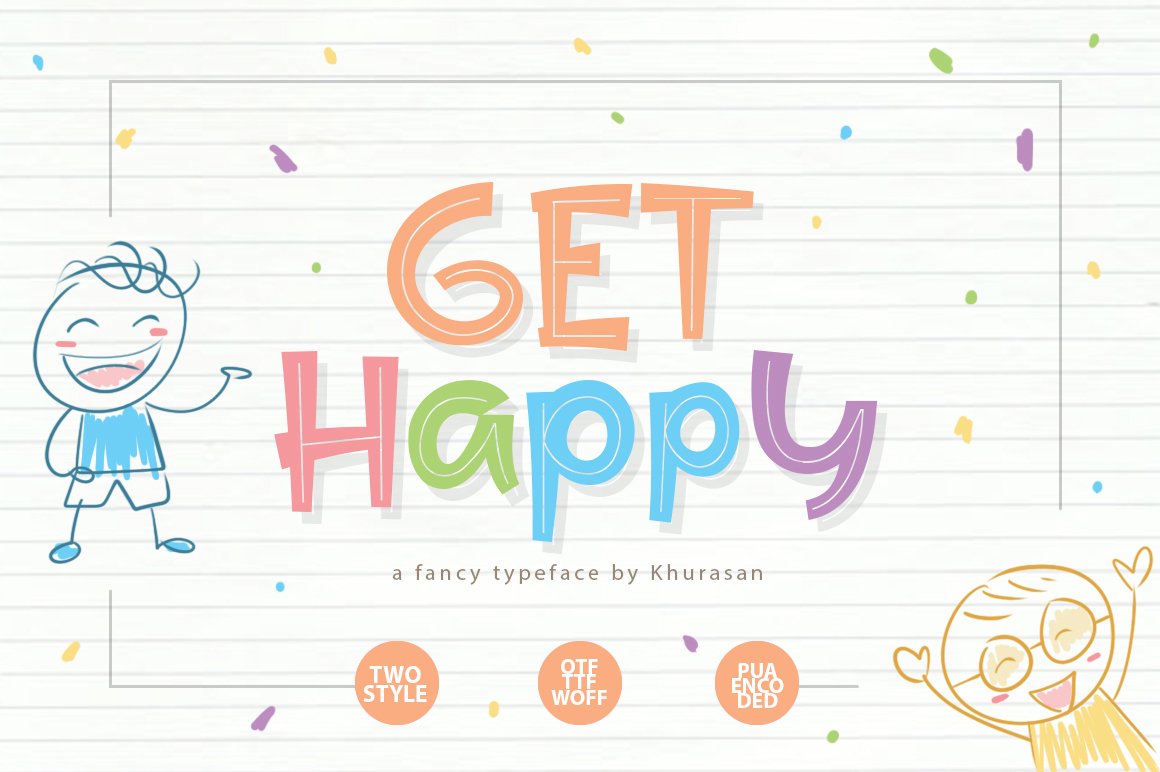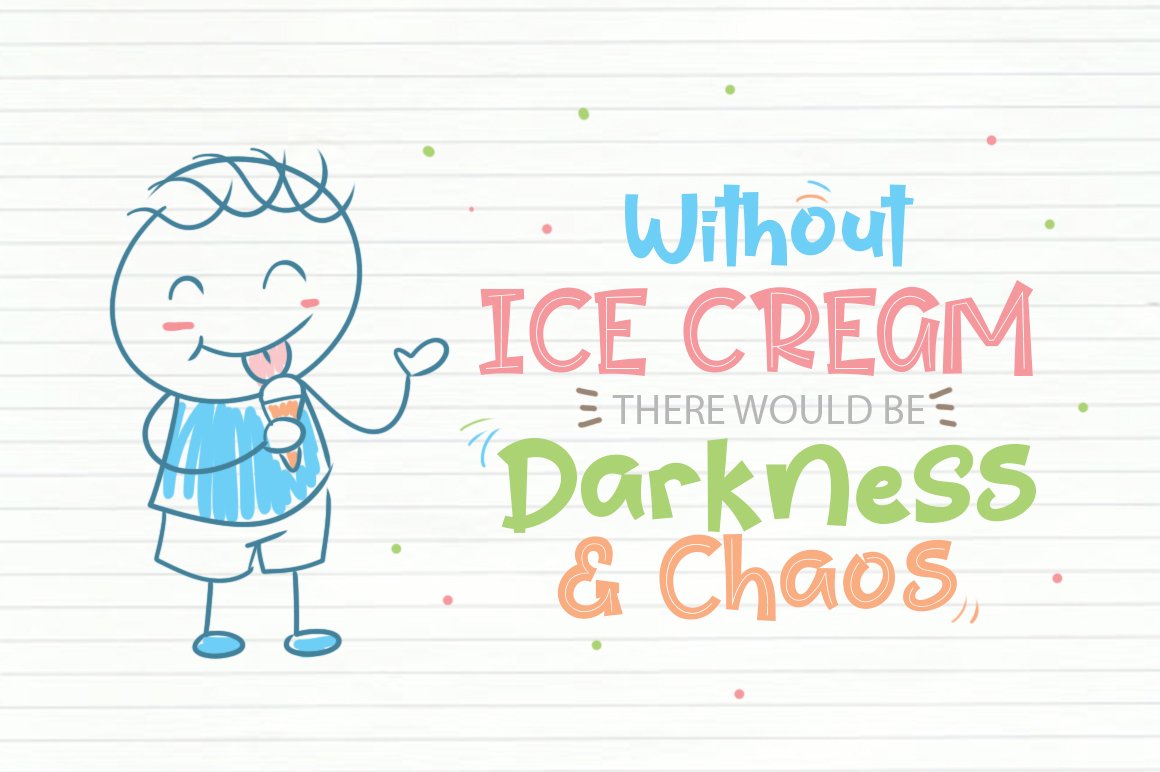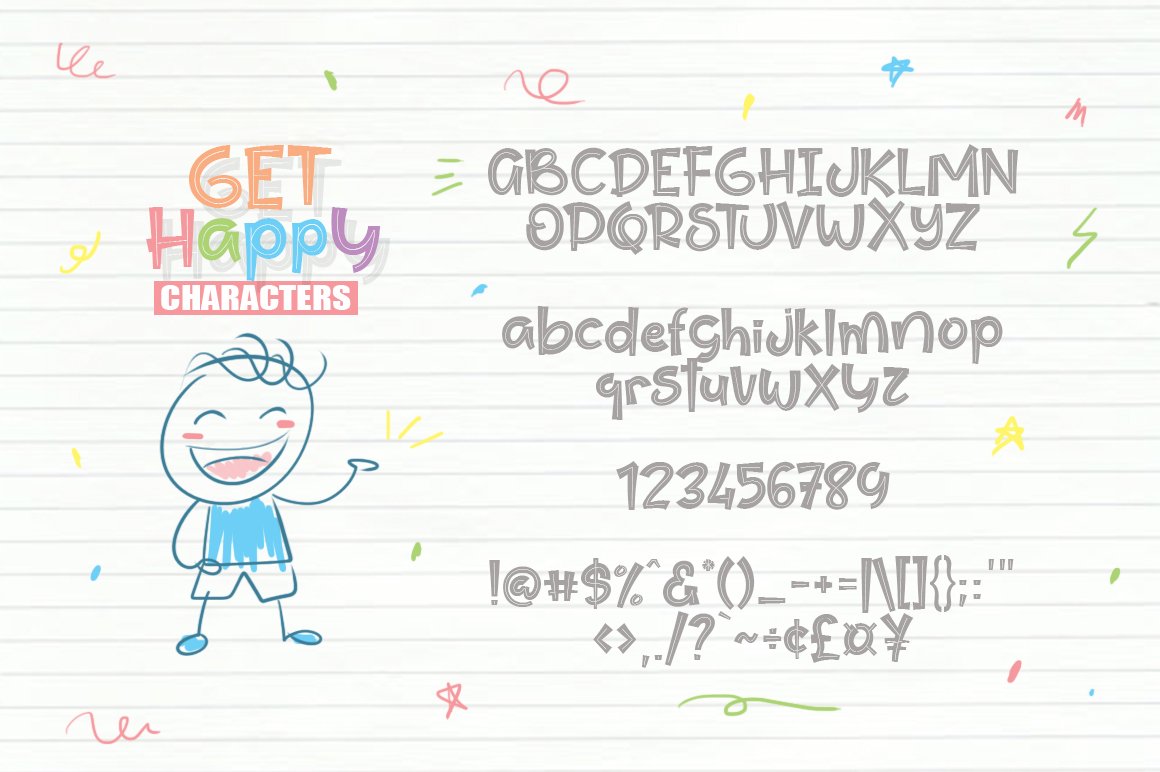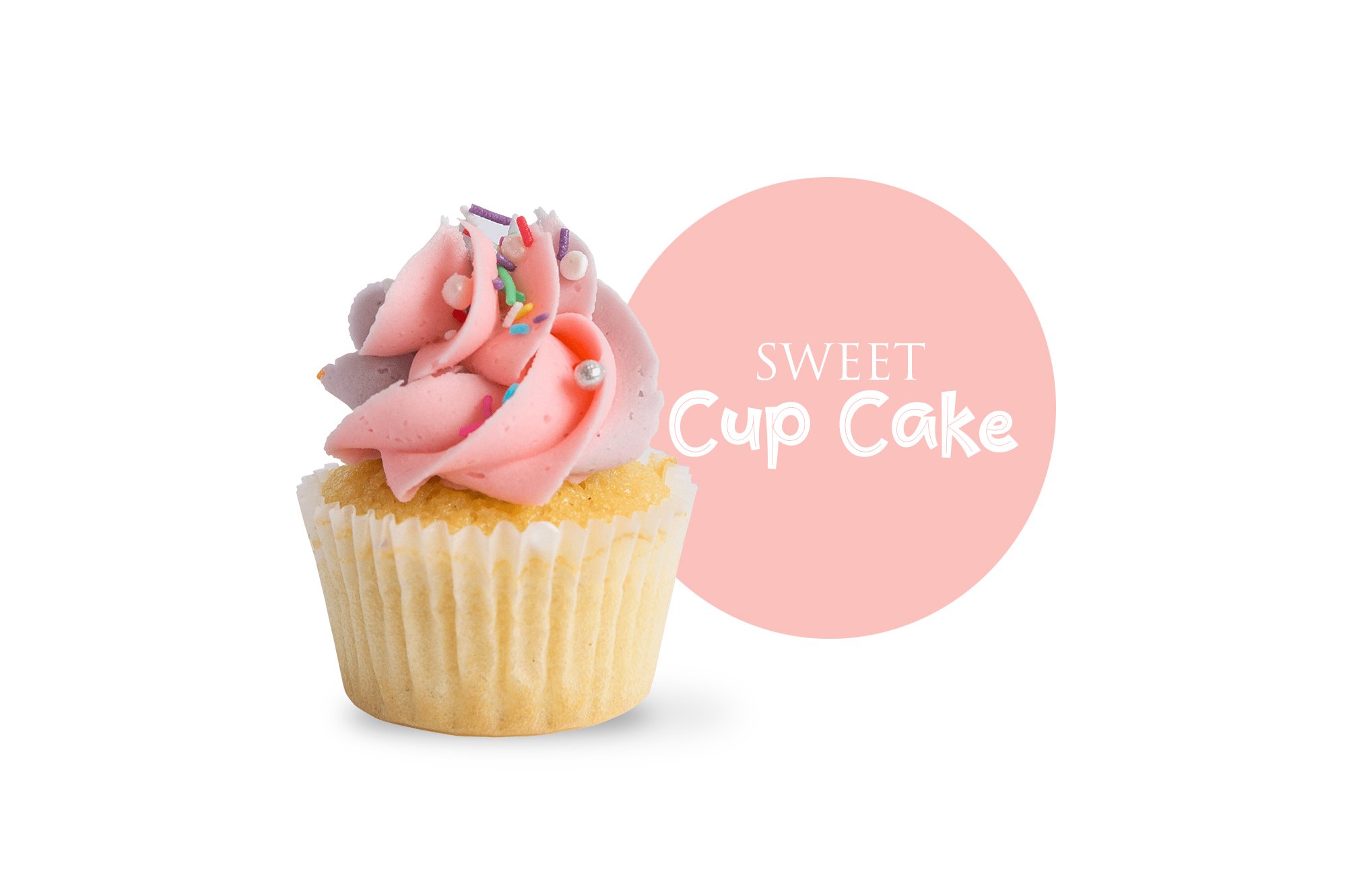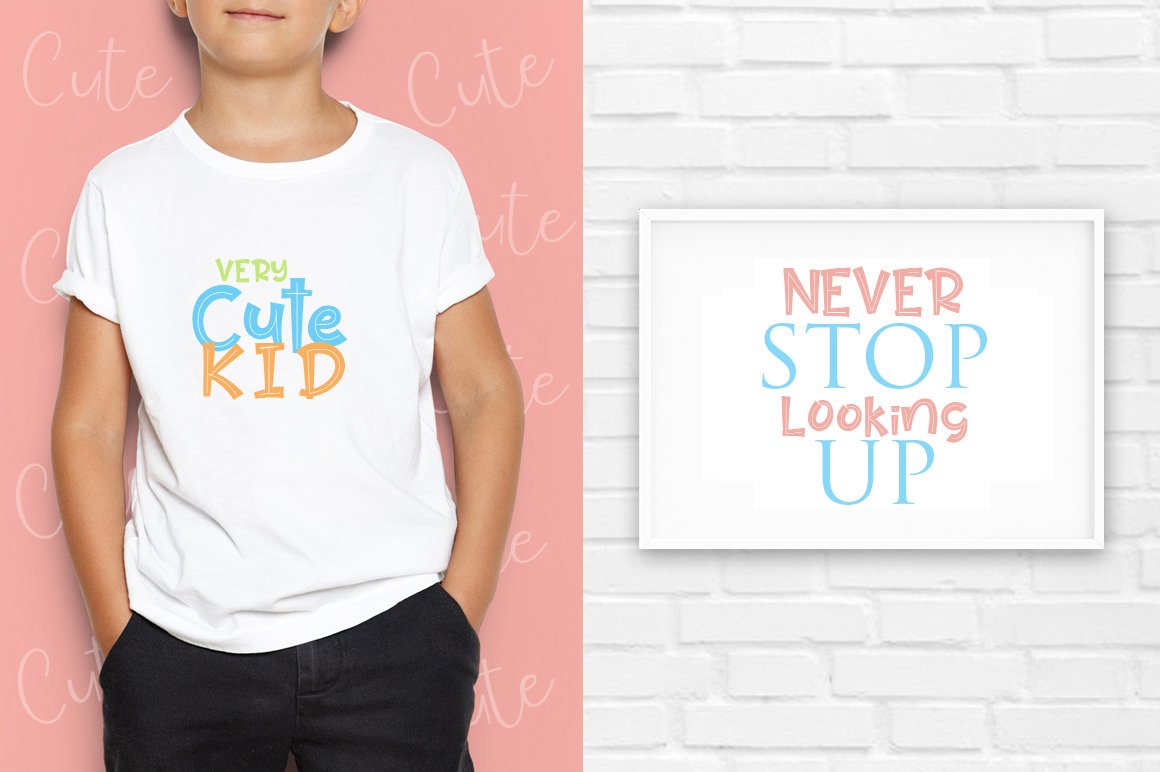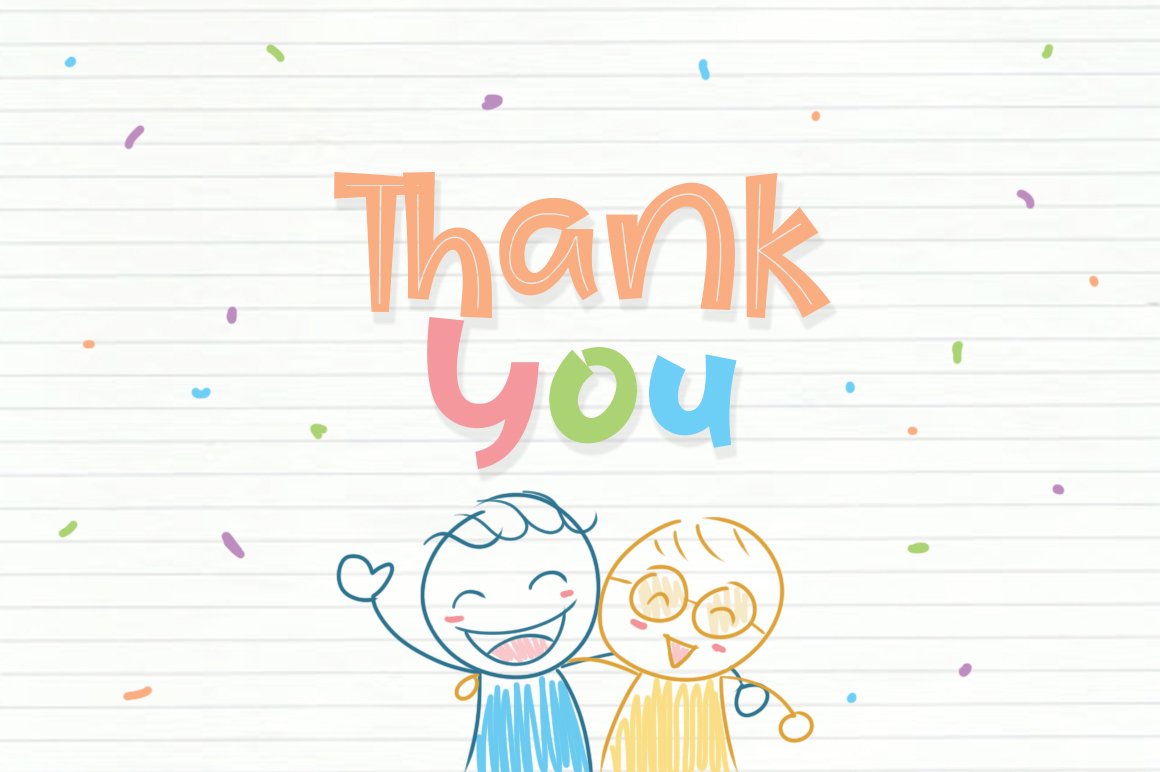
Get Happy Font
Get Happy Font is perfect for positive mental health campaigns, uplifting motivational posters, cheerful children's book design, joyful celebration invitations, happiness coaching materials, feel-good product packaging, optimistic wellness branding, joyful social media graphics, upbeat marketing campaigns, positive affirmation designs, cheerful greeting cards, and uplifting projects that require vibrant, joy-inspiring typography with infectious positivity and emotional uplift.
What makes Get Happy Font so exciting is its infectious joy and uplifting energy that embodies the pure essence of happiness, optimism, and the kind of positive emotional impact that instantly brightens moods and spreads genuine good vibes. This typeface features cheerful letterforms with bouncy characteristics and energetic details that evoke smiling faces, sunny days, and the kind of irrepressible happiness that makes people feel genuinely better about life. The font's joyful character and positive appeal make it perfect for wellness brands and happiness-focused projects that want to communicate pure joy, emotional uplift, and the kind of infectious positivity that creates lasting emotional connections and spreads genuine happiness.
Whether you're designing mental health materials, happiness coaching branding, or positive wellness communications, Get Happy Font delivers exceptional emotional authenticity and joyful energy that connects with audiences who seek genuine happiness and emotional well-being. Its cheerful, bouncy appearance works beautifully with bright color palettes and uplifting imagery, creating designs that feel both emotionally genuine and professionally uplifting for positive mental health.
The joyfully crafted letterforms of Get Happy Font demonstrate deep understanding of positive psychology and emotional design principles. Each character has been designed to promote feelings of happiness and emotional uplift while maintaining excellent readability, making it particularly valuable for wellness communications where typography must support mental health and create feelings of genuine joy rather than superficial cheerfulness that feels forced or inauthentic.